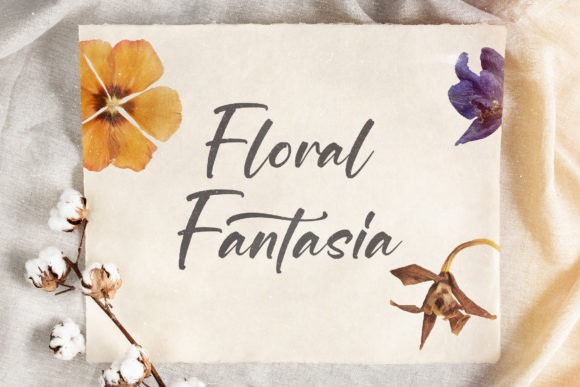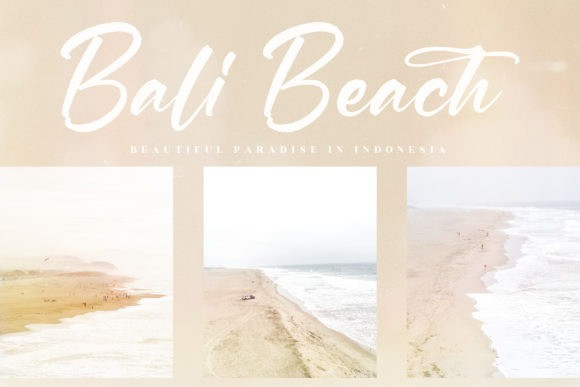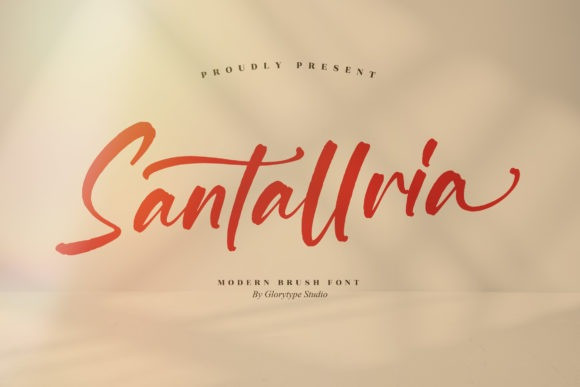
Santallria Script Font
Santallria Script Font, is a beautiful script font, suitable for logos, branding projects, homeware designs, product packaging, mugs, quotes, posters, and anything that may require a delicate taste. This font is PUA encoded which means you can access all of the glyphs and swashes with ease!